ABC We Print Anything
Abyme · Carolee Schneemann
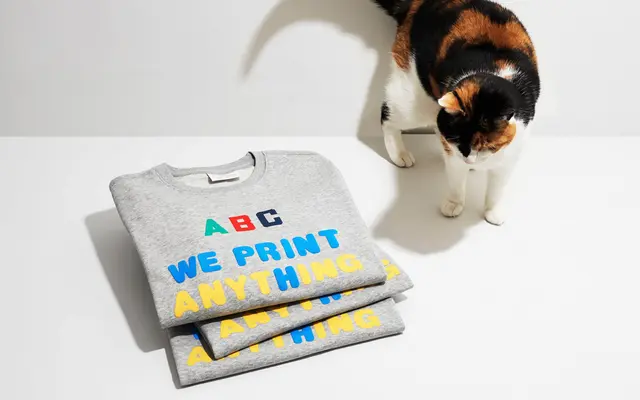
A recreation of hand-lettered signage worn by Carolee Schneemann in 1976, produced as a silkscreened sweatshirt edition in collaboration with the artist and The Artist's Institute, New York.
The lettering originates from a printer's shop-window sign that Schneemann photographed and later adapted as the title of her collaborative project with Anthony McCall and Bruce Nauman. Abyme's edition reproduces that lettering on a french terry sweatshirt, silkscreened in a limited run of 75 plus 15 artist's proofs. It sits at the border of type artefact and artist multiple rather than functioning as a deployable typeface.
The lettering is derived from a found vernacular sign photographed in 1976, reproduced as a silkscreened garment rather than a conventional digital typeface; classified as display given its single-use, expressive, non-text character.